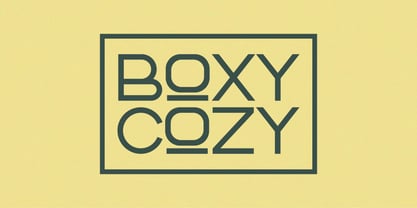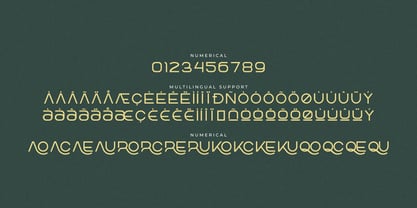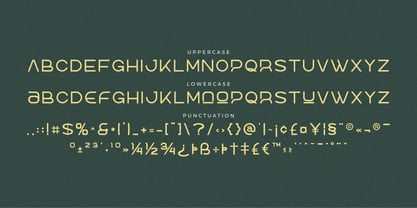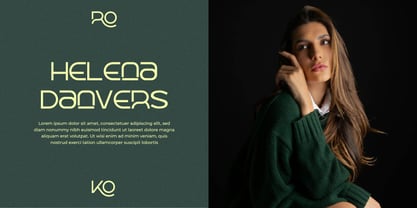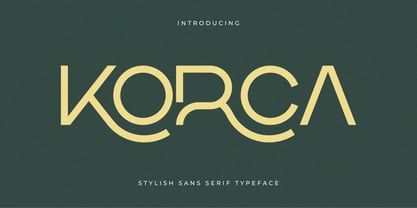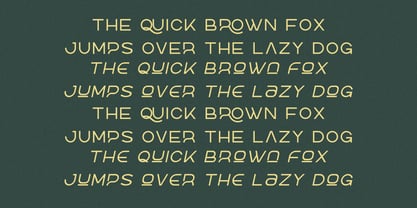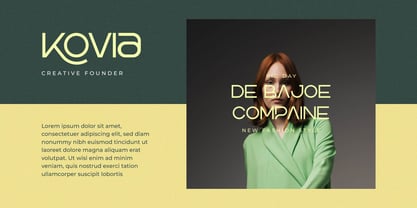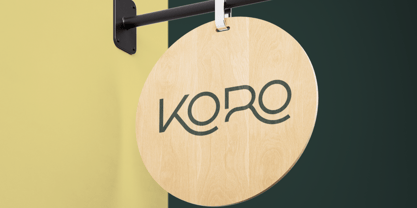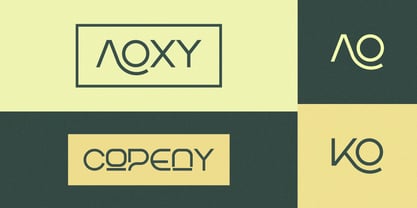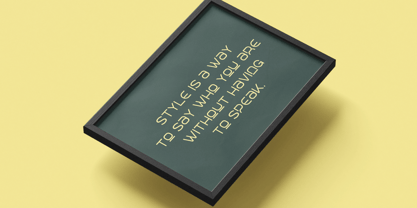
Korca
by Artiveko
The Korca Font Family was designed by Iwan Alwan and published by Artiveko. Korca contains 2 styles and family package options. More about this family
Korca is a stylish geometric sans serif font that seamlessly blends clean circular forms with distinctive custom letterforms. Its smooth curves, elegant proportions, and subtle geometric details contribute to a refined personality that exudes modernity, artistry, and effortless sophistication. Ideal for fashion branding, beauty identities, logos, editorial layouts, packaging, posters, magazines, social media graphics, and creative campaigns, Korca infuses a unique visual character into both premium and contemporary projects. Its innovative construction elevates ordinary words, making them more expressive while preserving the clarity and simplicity expected from a modern sans serif. Whether used for a minimalist wordmark or a sophisticated fashion headline, Korca provides designers with a versatile typographic voice that boasts a recognizable personality. Korca — a stylish geometric sans serif for distinctive modern design.
Designers: Iwan Alwan
Foundry: Artiveko
Artiveko is a font design team based in Indonesia, comprised of several talented font designers who commenced their careers in the font design industry in 2020. With a dedicated focus on crafting fonts, the team members bring their collective expertise and passion to every project they undertake. Situated in Indonesia, Artiveko draws inspiration from the vibrant cultural landscape of the region, infusing their creations with unique flavors and aesthetics.The team's font collection encompasses a diverse range of styles, including serif, sans serif, handwritten, and script typefaces. Each typeface is meticulously crafted to meet the demands of modern design while offering versatility and functionality across various applications. Whether it's the classic elegance of serif fonts, the contemporary appeal of sans serif designs, the personal touch of handwritten scripts, or the expressive flourishes of script fonts, Artiveko ensures that every font reflects their dedication to quality and innovation.Artiveko's fonts have garnered recognition and acclaim, with their works being featured on prominent social media platforms like Creative Market. Through these platforms, the team has been able to connect with a global audience of designers and typographers, further amplifying their reach and influence in the industry. Their fonts are celebrated for their impeccable craftsmanship, attention to detail, and ability to elevate design projects with style and sophistication.As Artiveko continues to evolve and expand its font collection, the team remains committed to pushing the boundaries of typography and setting new standards of excellence. With a relentless focus on creativity, innovation, and collaboration, Artiveko strives to inspire and empower designers around the world with their distinctive and versatile font designs.